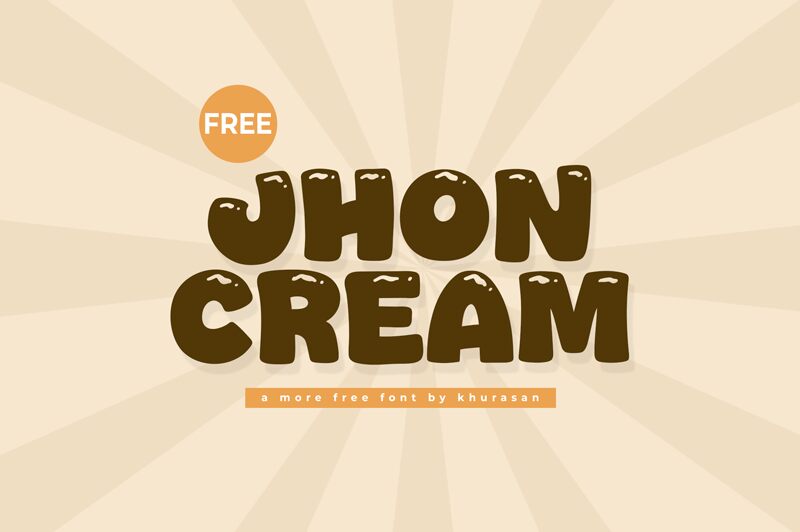
Jhon Cream font by Khurasan is a display font that brings bubbly elements and playful variations to every project. Expanded in width, its bold letters showcase casual looks with some retro influences. Some fluid-like textures and imperfections such as rounded corners add even more charm.
It is a great choice for posters, flyers, greeting cards, social media posts, books, t-shirt designs, menus, website backgrounds, stickers and badges. Enjoy this free cartoon style font in app designs as well as other professional projects that can be printed or used online!